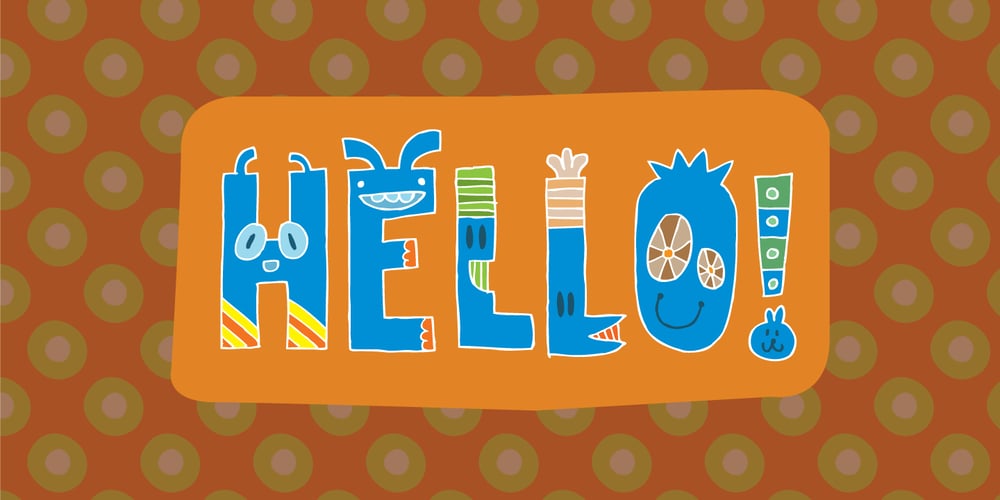
Sillyheads
Sillyheads font
Sillyheads Font Family was designed by Jakob Fischer and published by PizzaDude.dk. Sillyheads contains 1 styles and family package options. Need something VERY silly for your headlines and still keep the legibility?! Then Sillyheads could be your no. 1 choice! Sillyheads has got that funny, weird, cute, crazy look!